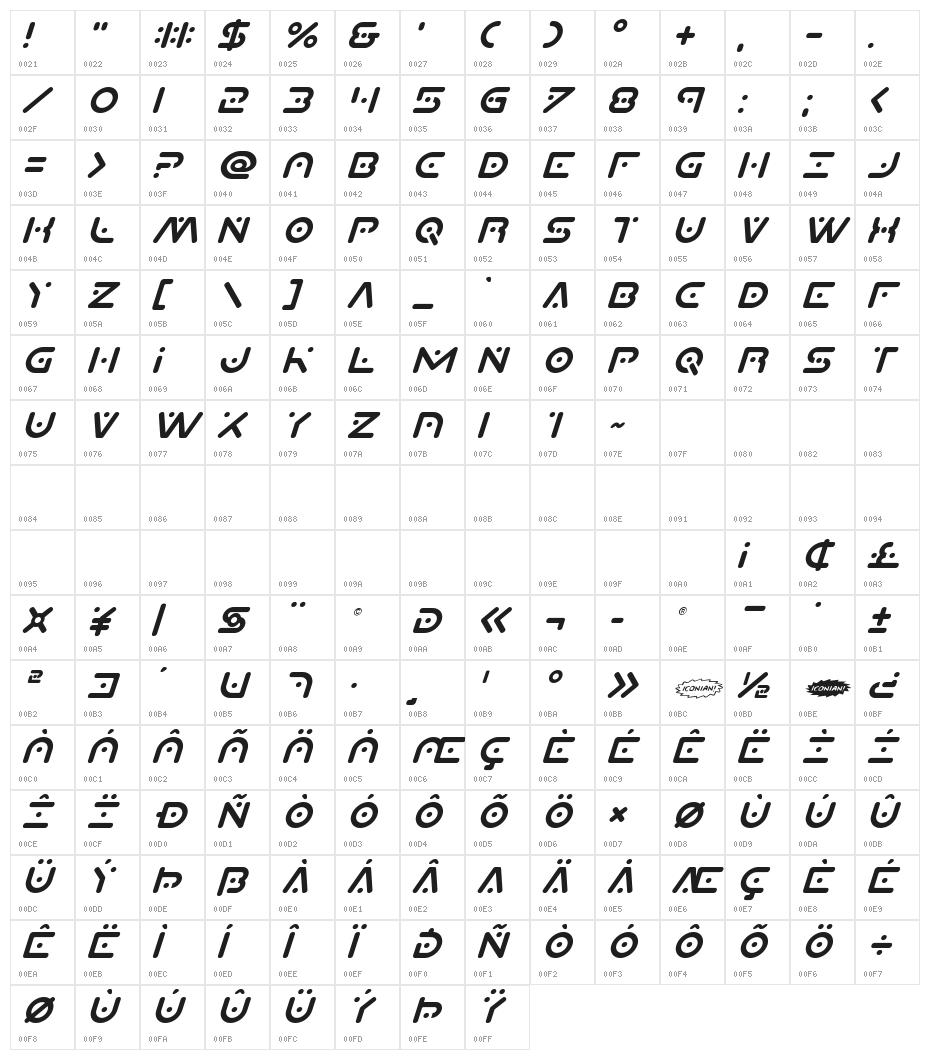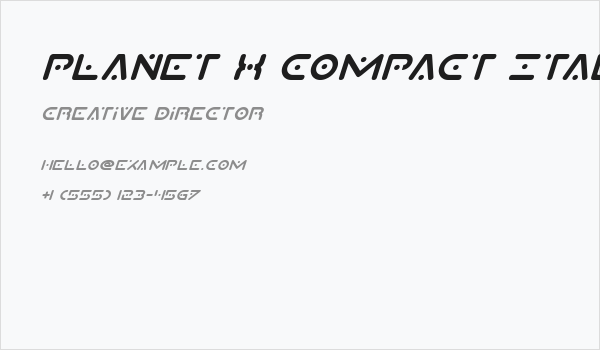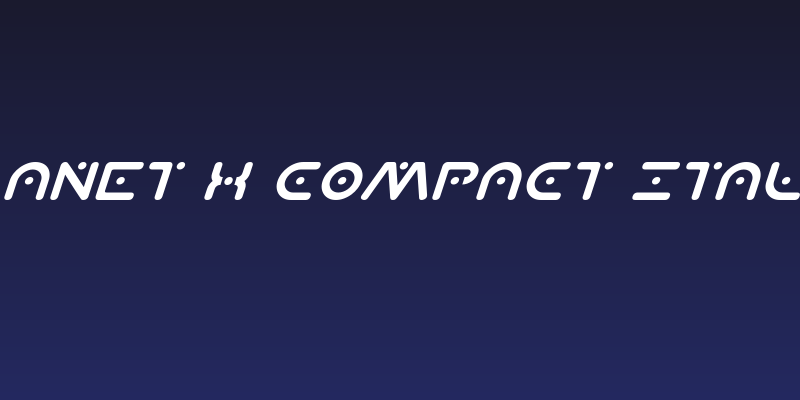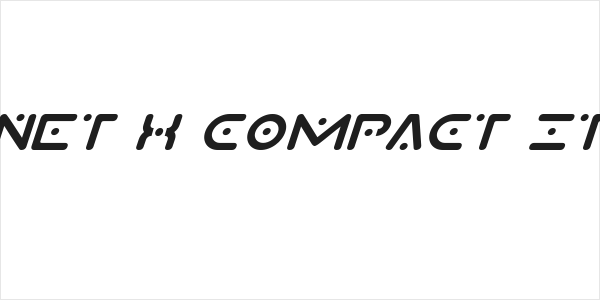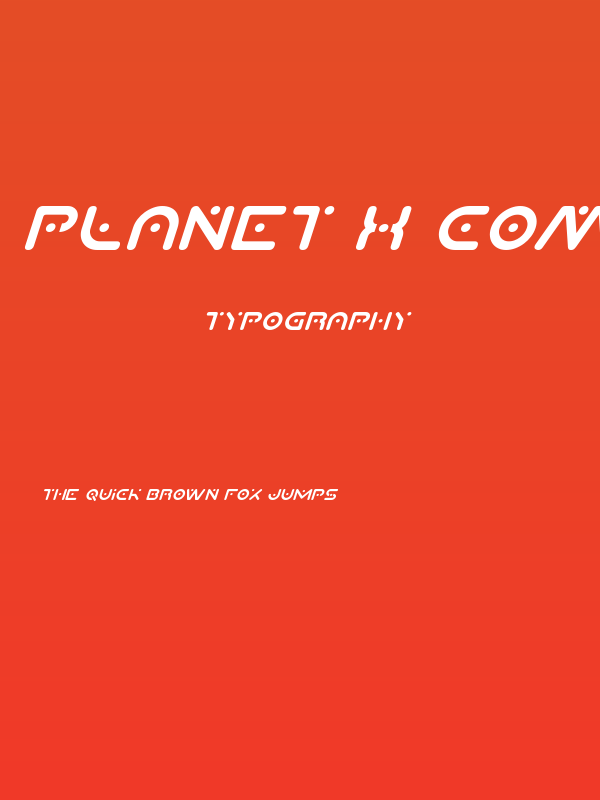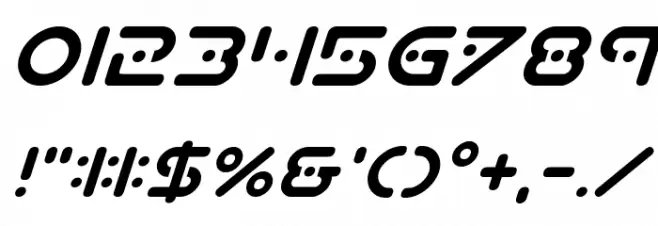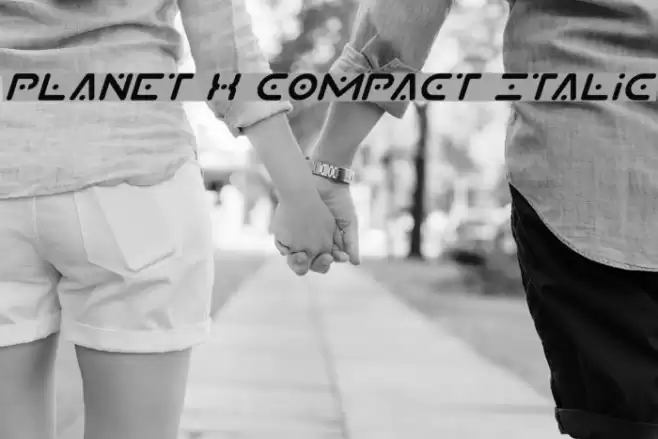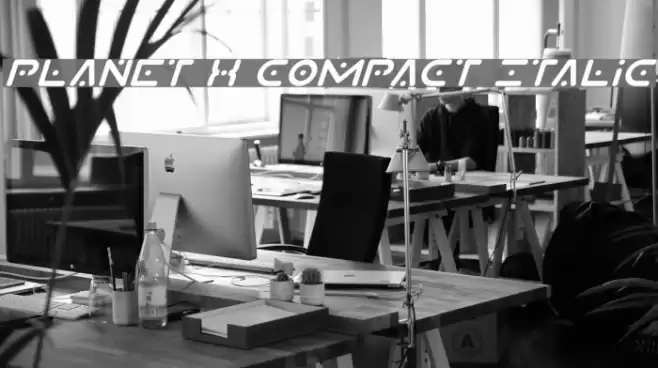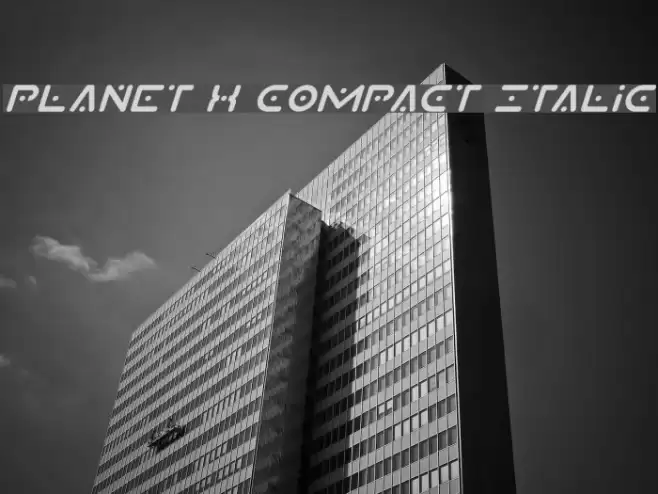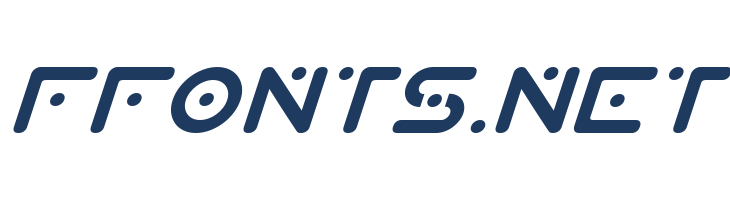
Planet X Compact Italic Font
Planet X Compact Italic Description
This futuristic and sleek typeface features a unique blend of geometric shapes and smooth curves, creating a distinct and modern appearance. The characters are italicized, giving them a dynamic and forward-leaning posture. The font is characterized by its compact form, with letters closely spaced, enhancing its streamlined look. The bold strokes and rounded edges contribute to its readability while maintaining a stylish and contemporary feel. The font's design is ideal for projects that require a modern and innovative touch, such as technology branding, sci-fi themes, or digital interfaces.
| Use Case | Headlines, Logos, Digital Interfaces |
| Proposed Projects | Ideal for technology branding, sci-fi themes, digital interfaces, and innovative design projects. |